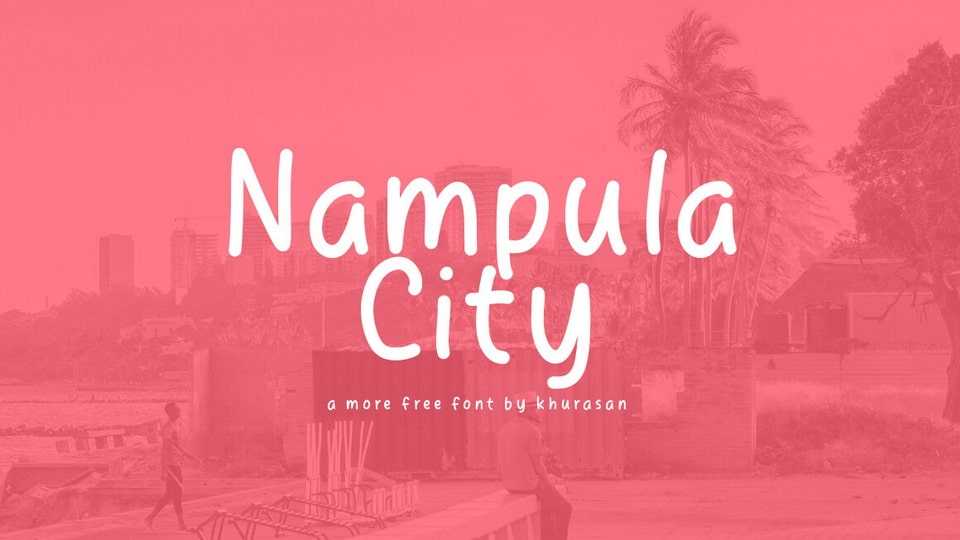
Download Nampula Cityfont, a hand-drawn comic typeface that’s as playful as it is expressive. Nampula City font is your go-to when you want to convey a sense of lightheartedness and artistic spontaneity in your designs.